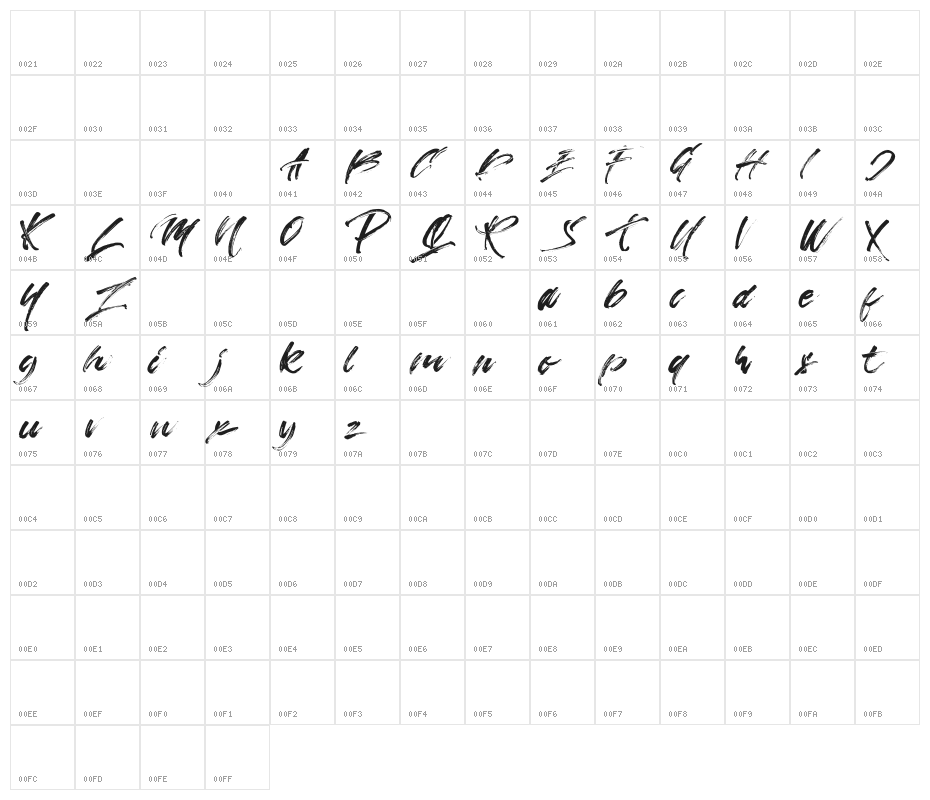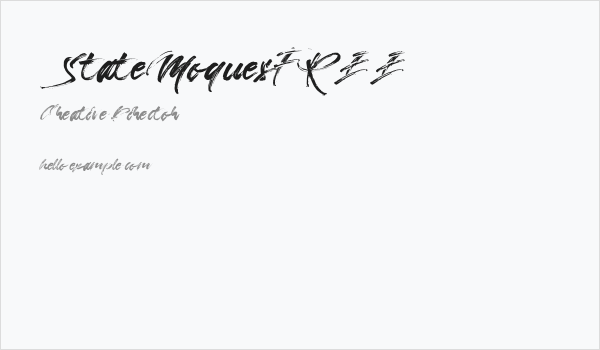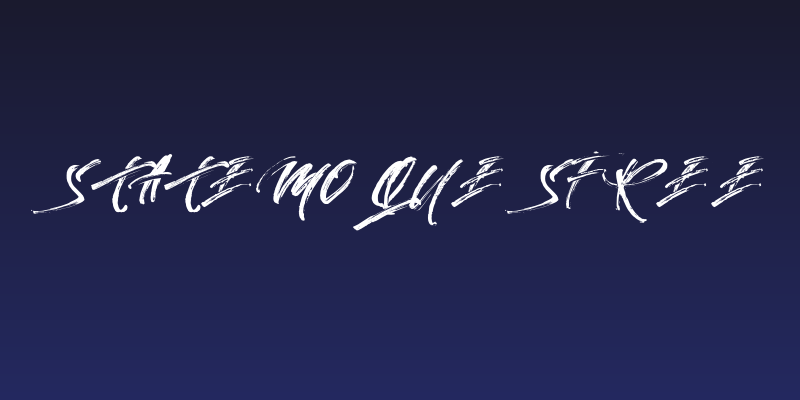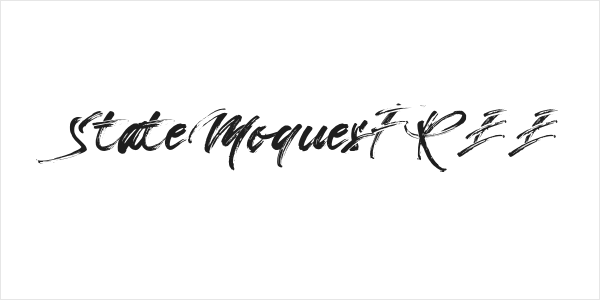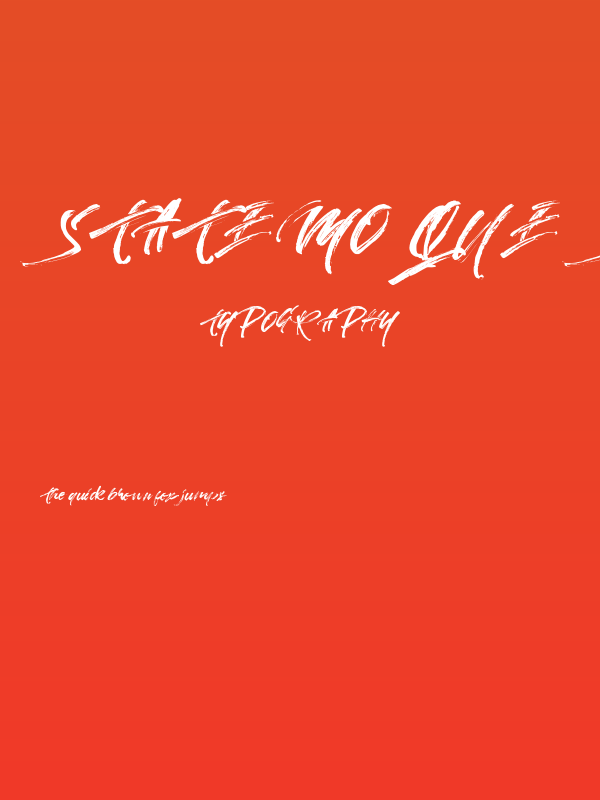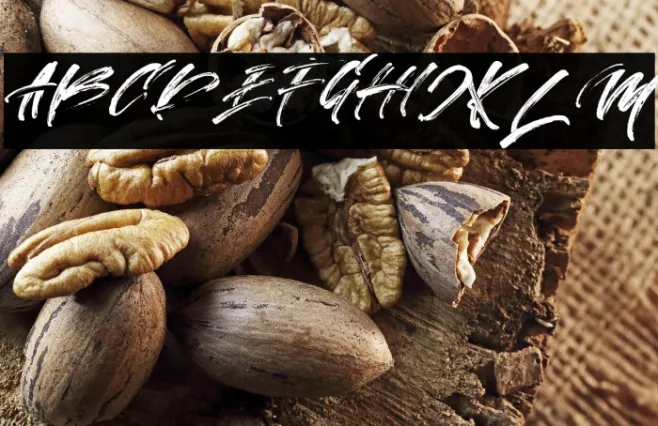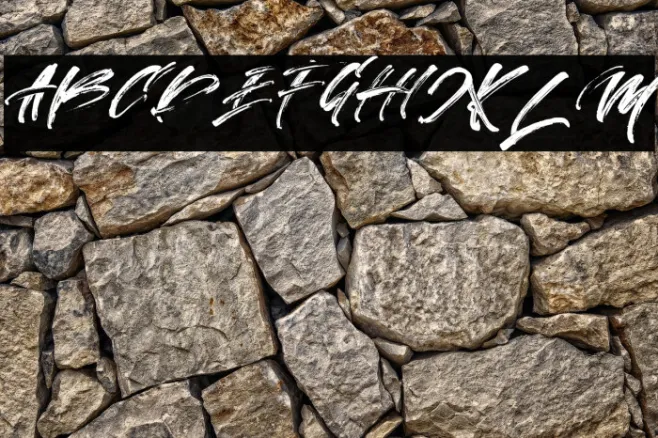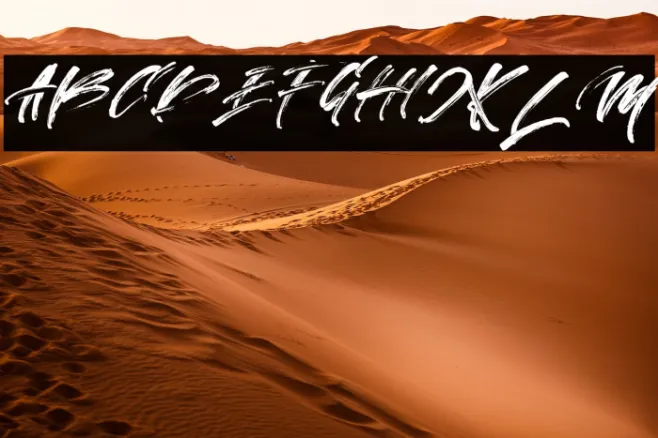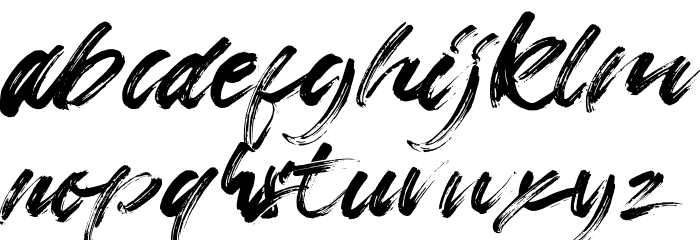
StateMoquesFREE Font
StateMoquesFREE Description
This font features a dynamic and expressive brush script style, characterized by its bold, sweeping strokes and energetic flow. The letters are crafted with a sense of movement, giving them a lively and artistic appearance. The uppercase and lowercase letters maintain a consistent style, with varying stroke widths that add a sense of depth and texture. The font's brush-like quality gives it a hand-painted feel, making it ideal for projects that require a personal and creative touch. The overall design is both modern and artistic, with a focus on individuality and expression.
| Proposed Projects | Ideal for branding, posters, invitations, and any design needing a personal, artistic touch. |